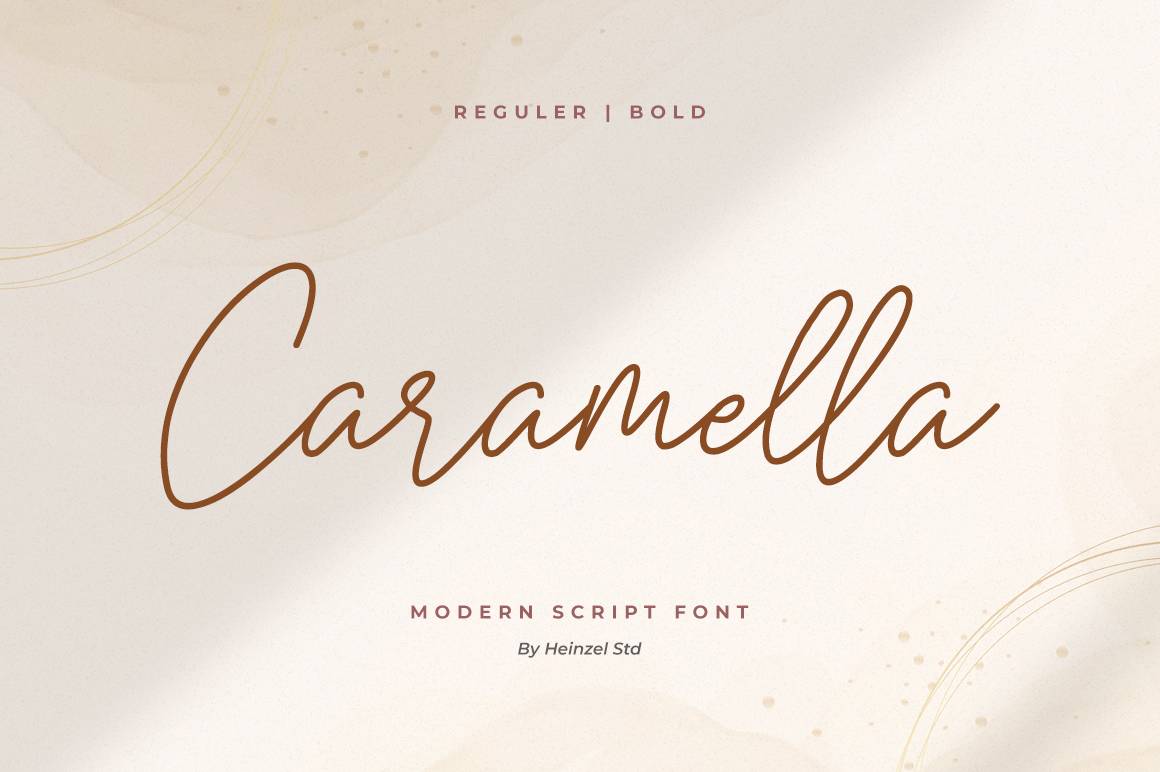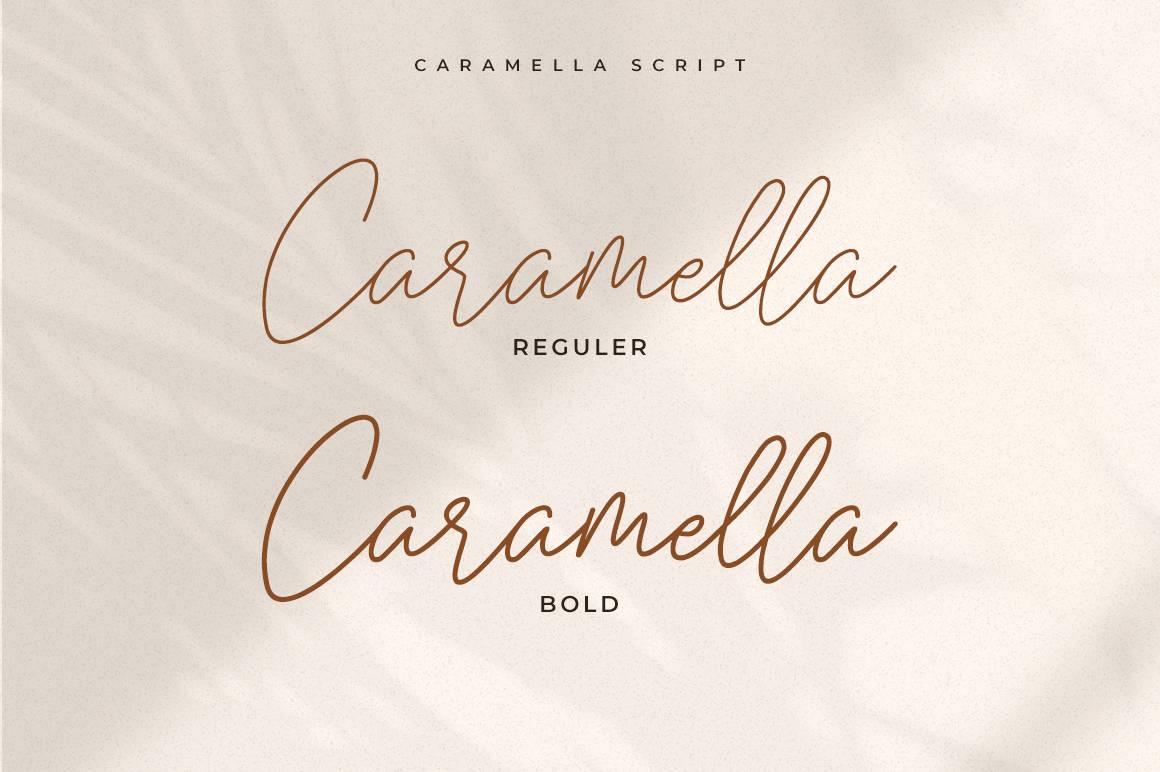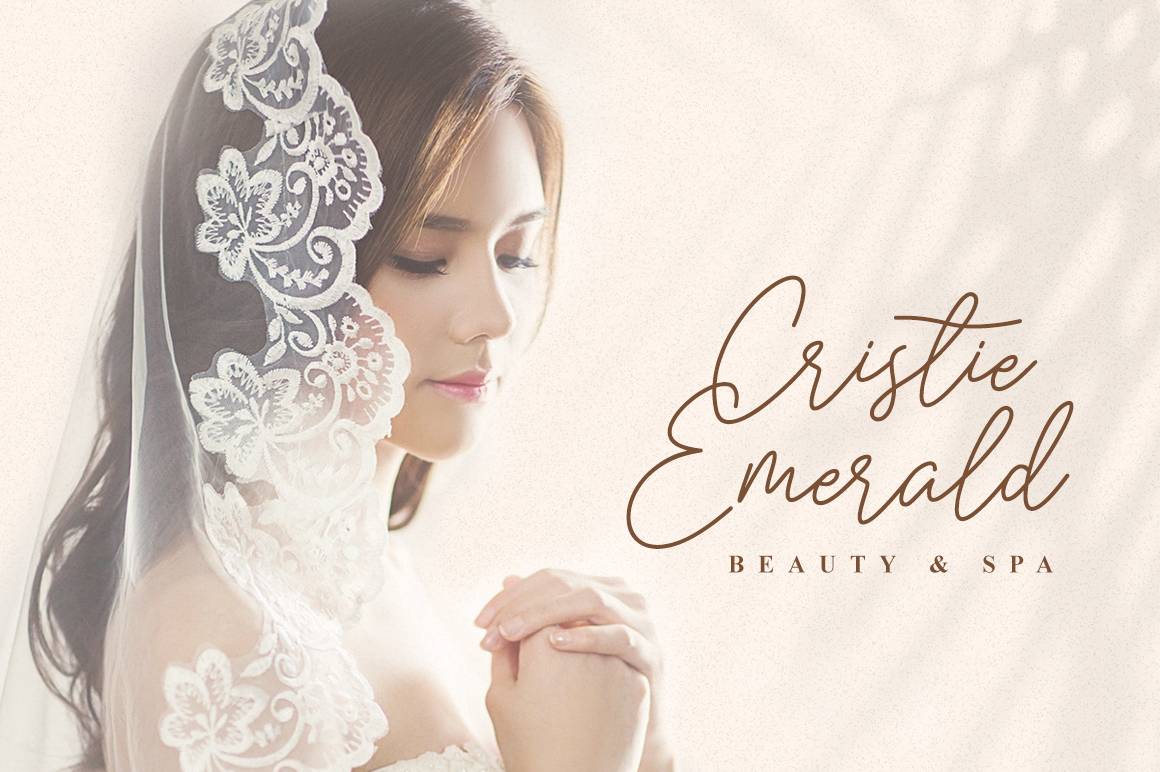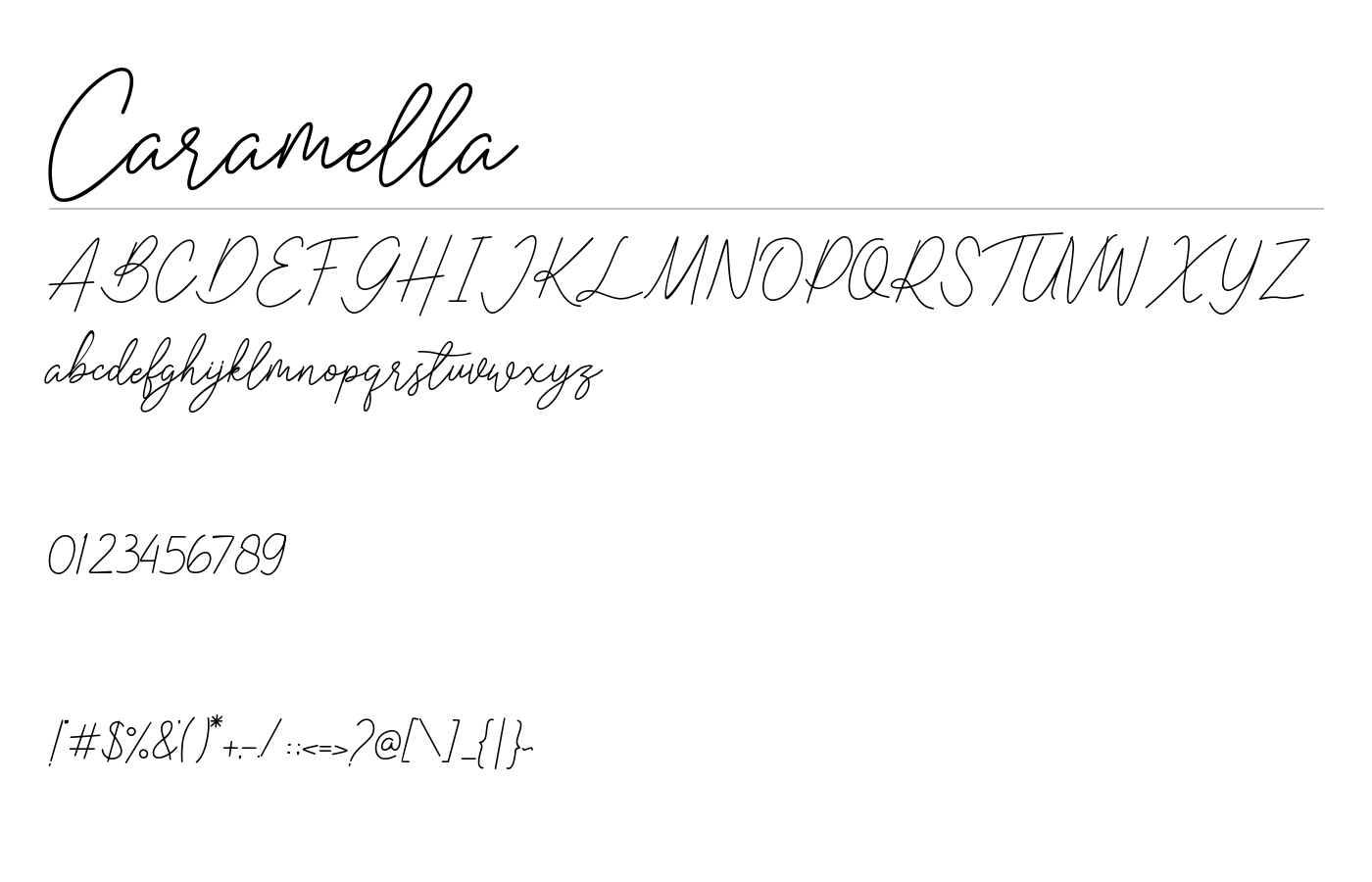
Caramella Modern Script is a delicate, elegant handwritten font characterized by its thin, flowing strokes and slightly slanted letterforms. Its airy, graceful style with light weight and smooth curves makes it ideal for feminine branding, wedding invitations, and stylish editorial designs. This font shines best in contexts where a refined, personal touch and modern sophistication are desired.
Caramella Modern Script Font
About Caramella Modern Script Font